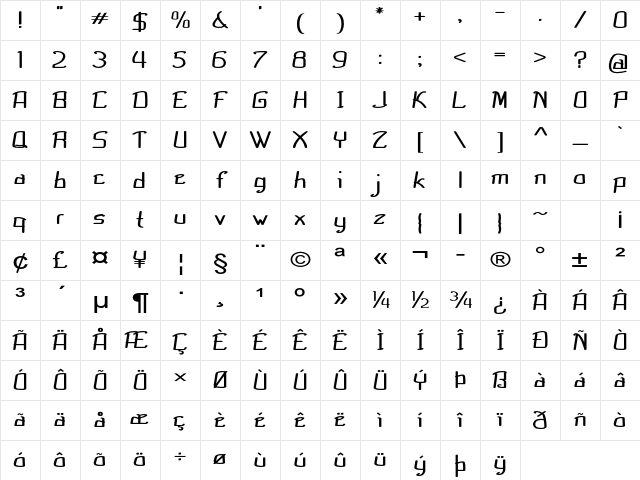
Cruddy Expanded Bold
Style: Expanded Bold
Cruddy Family
Cruddy Expanded Bold
Design Context for Cruddy
Cruddy is a composed and adaptable typeface that performs quietly and consistently across a wide range of design contexts. Its bold stroke weight gives it real presence on the page.